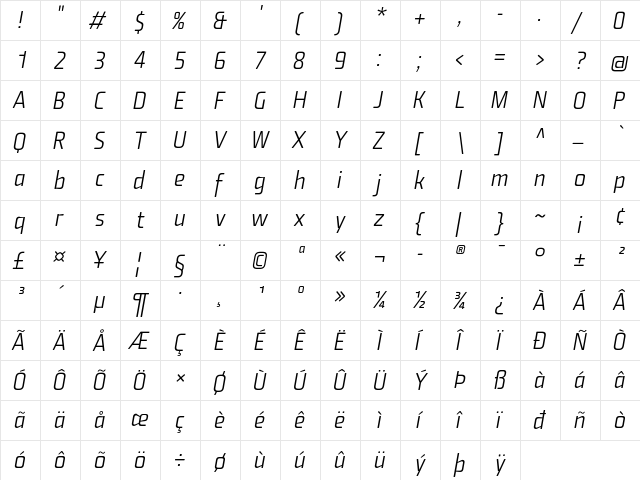
Fishmonger ML Italic
Design Context for Fishmonger ML Typeface
Fishmonger ML takes a measured approach to typography — its balanced proportions and neutral character make it a reliable workhorse for both digital and print work. Its italic angle brings a sense of urgency and motion to the letterforms.
Pro Tip: Try Fishmonger ML for annotation and caption copy alongside an upright companion — the contrast in angle creates a dynamic but ordered typographic system.